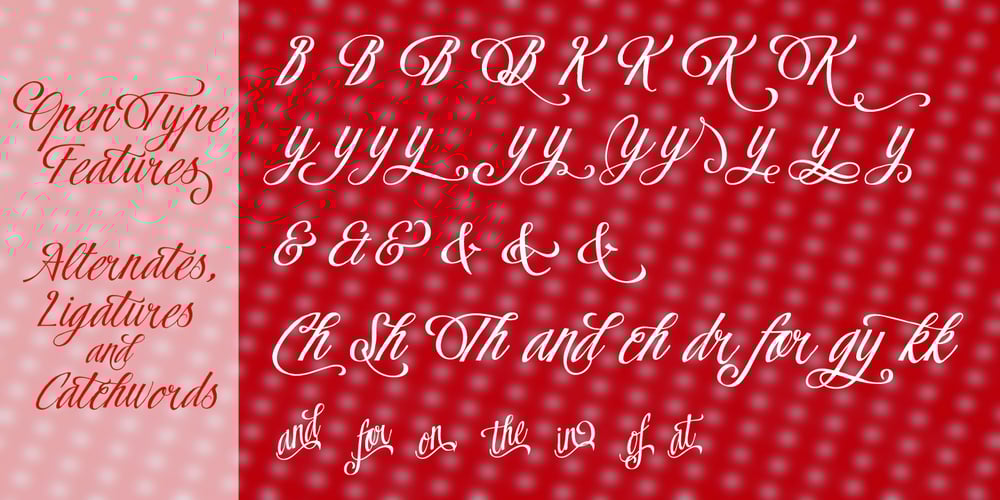
Flamenca Font Family was designed by Carine de Wandeleer and published by Eurotypo. Flamenca contains 2 styles and family package options. Flamenco is an Andalusian art. Who think in flamenco, think in Spain. Is the result of a cultural mix: Gypsies, Arabs, Jews and Christians mixed elements of their respective cultures with traditional Andalusian elements. It incorporate dance, song and guitar music. Known for its emotional intensity, flamenco is distinguished by the graceful arm movements, ferocious stomping’s flamenco dancer, deep groans and strumming guitar. Flamenco is an art of passion. Flamenca Regular and Flamenca Luz is a brush script inspired by the flamenco dance. Flamenca is an organic, modern and casual calligraphy family font that has preserved in its glyphs its original textured appearance for a more personalized effect even more authentic. As an exclusively Open Type release, with 747 glyphs, it has several special alternatives for all letters with lots of possibility an infinity of combinations. There are plenty of options to allow you to create something unique and special: standard and discretionary ligatures, several swashes, initial and terminal forms and stylistics alternates for each letter, catchwords, ornaments that can be added to the beginning or end of each letter, and much more. Ornaments has been created inspired in the bars of the Andalusian patios where flamenco is danced. These lovely fonts have already an extended character set to support Central and Eastern as well as Western European languages. As a whole, Flamenca was made to make your project more beautiful and attractive! Have fun with it! Flamenca is fancy, delicious & fresh!